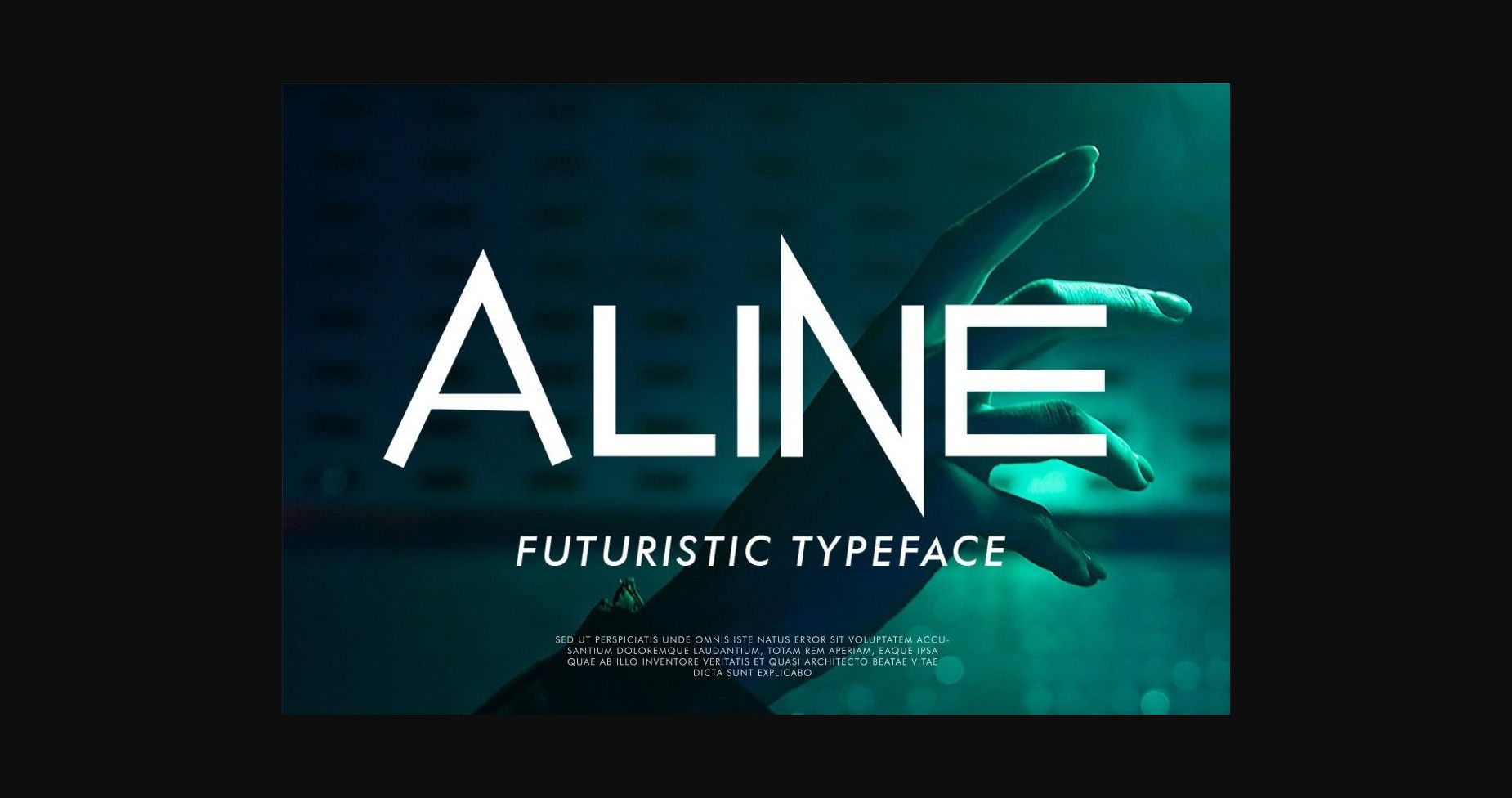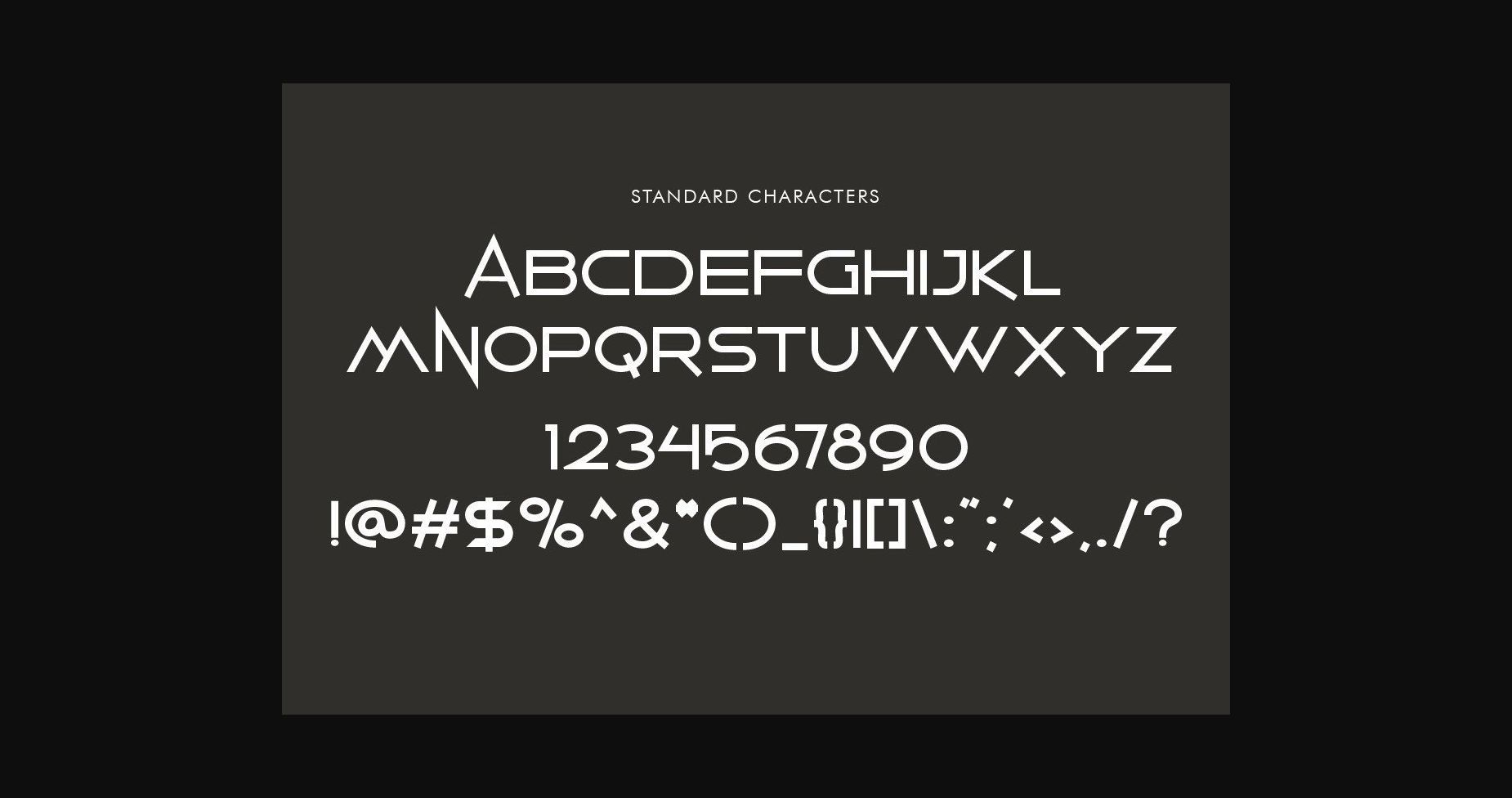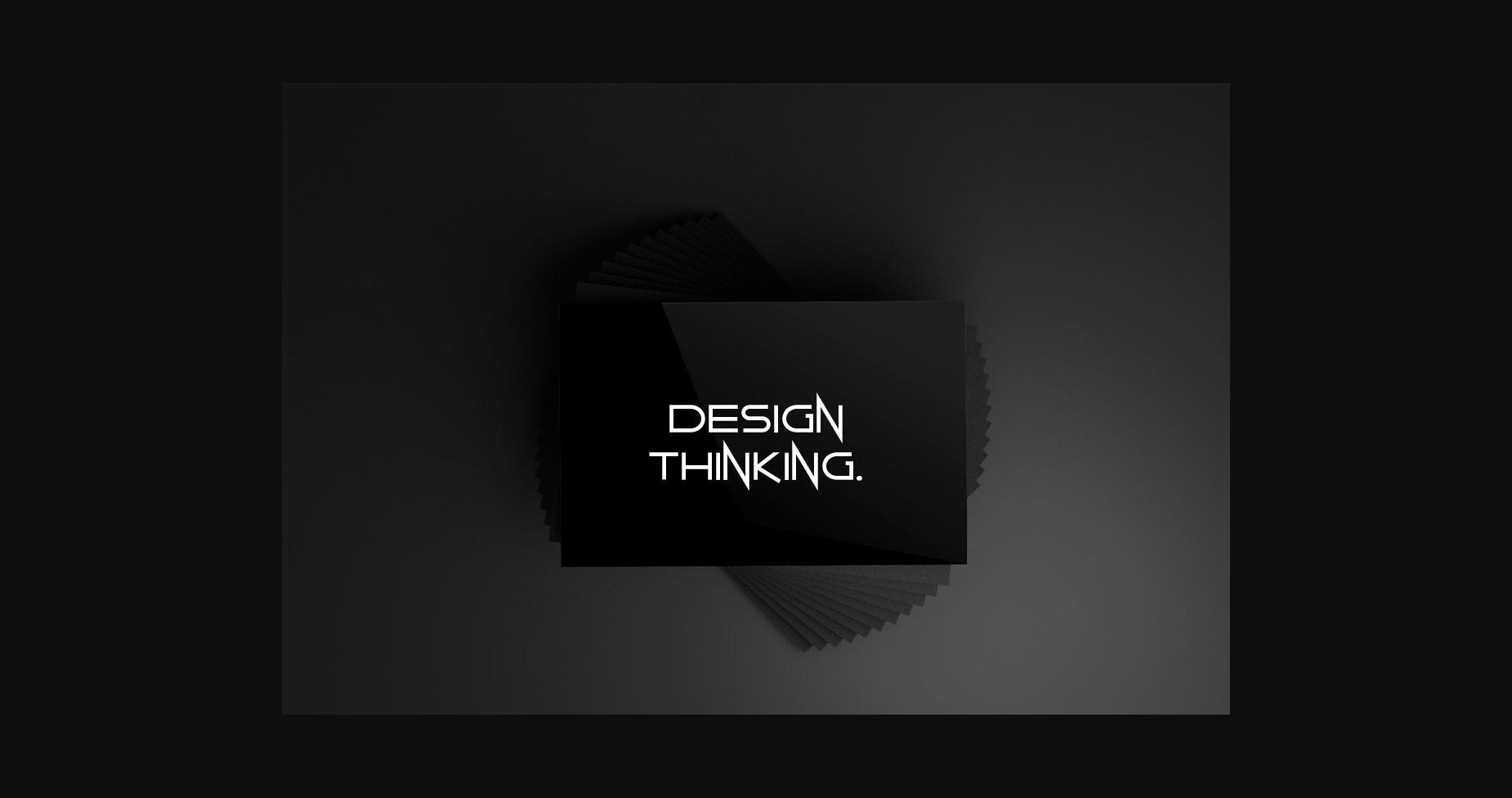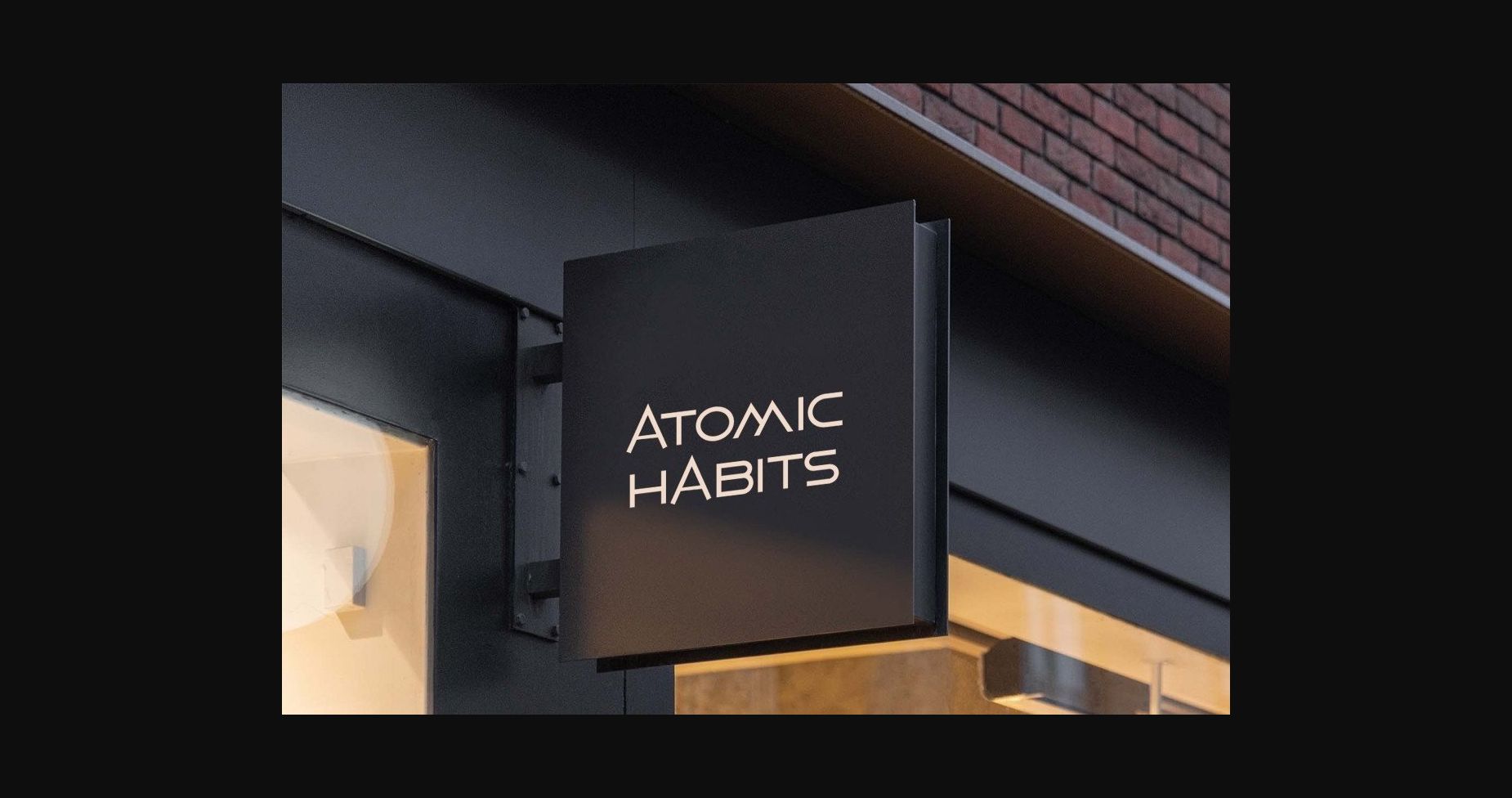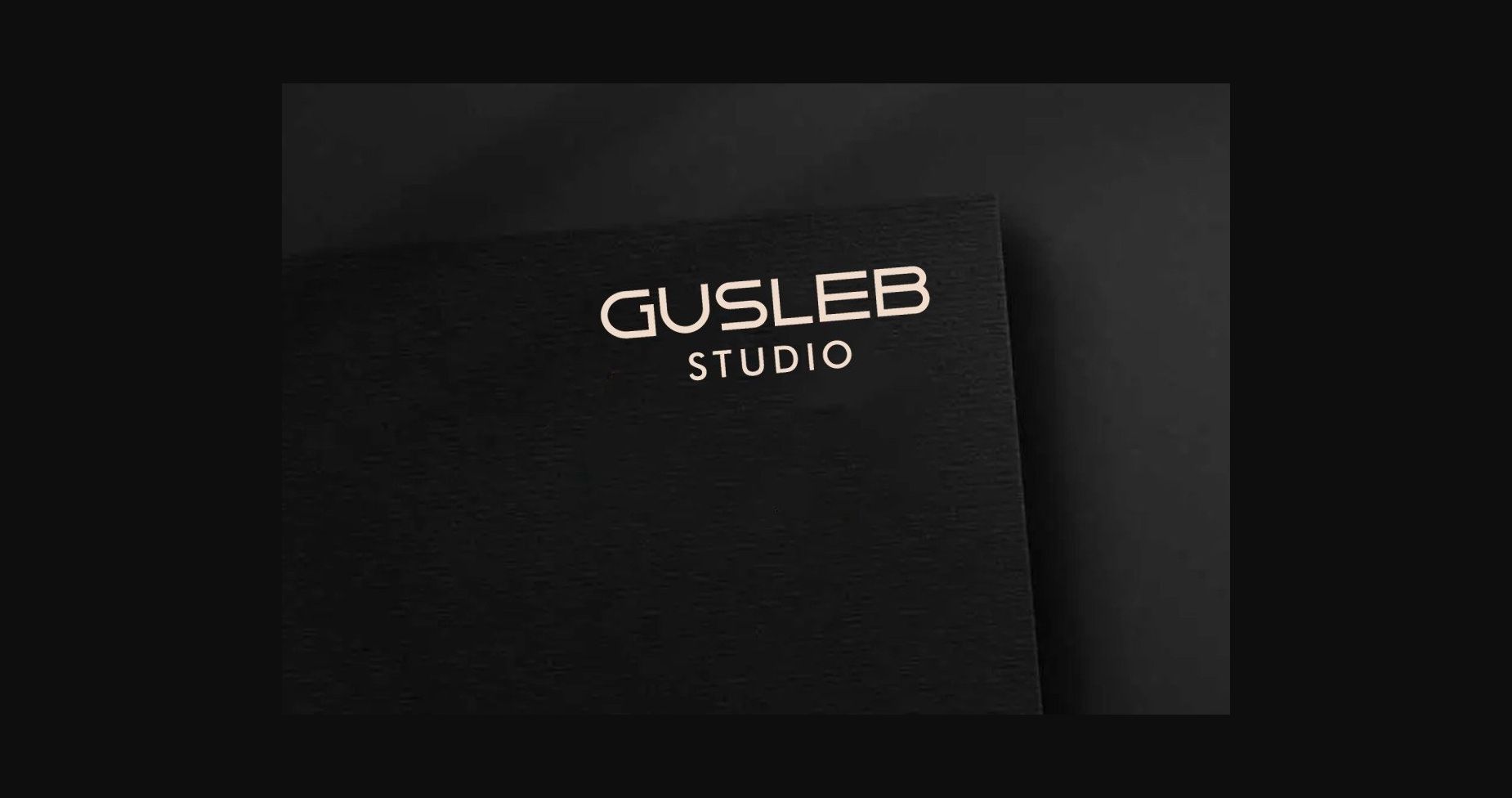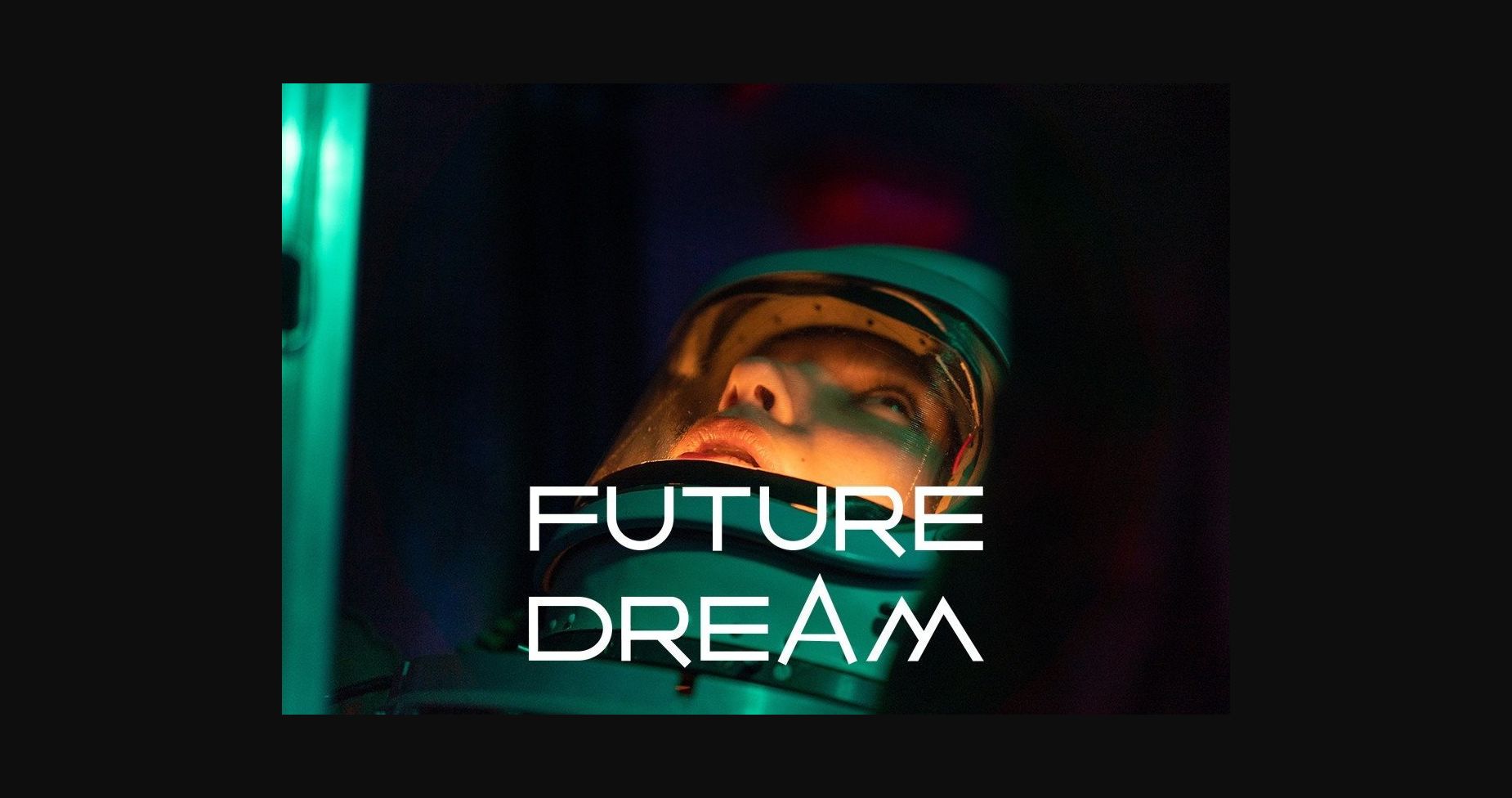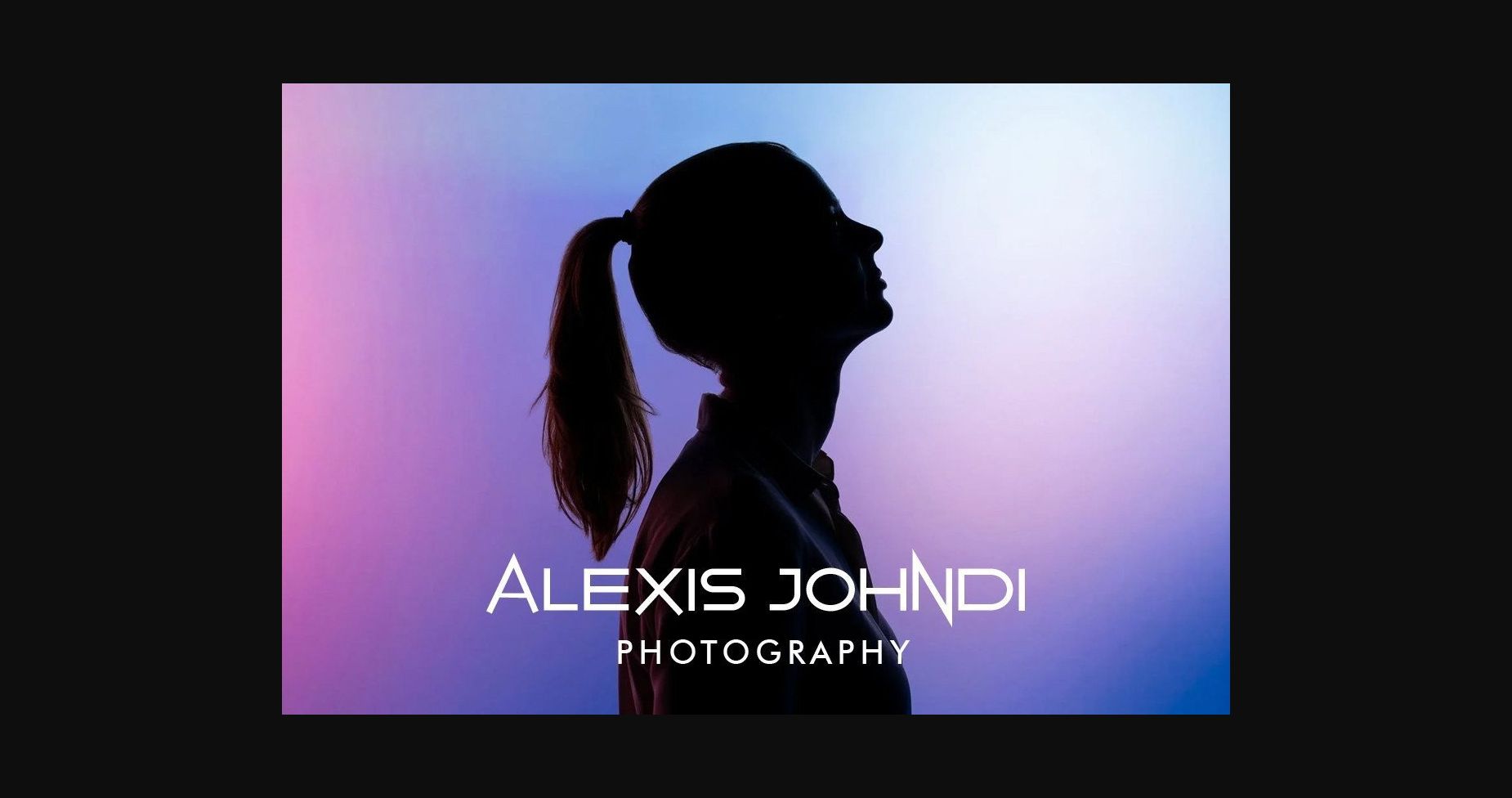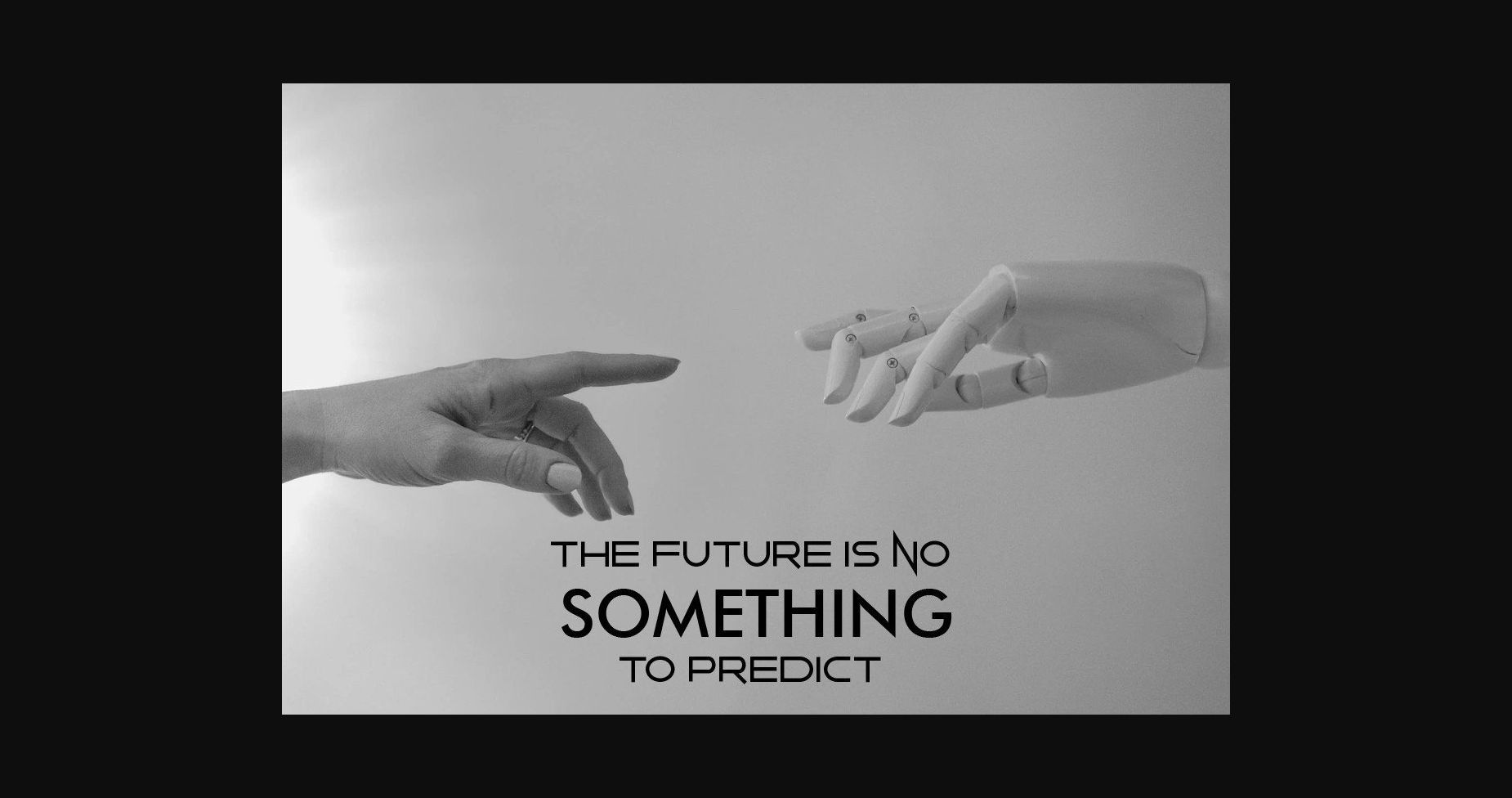
Aline is a sans serif font with a unique uppercase that will make your design looks futuristic and modern. You can use this font for any purpose, especially to make logotypes.